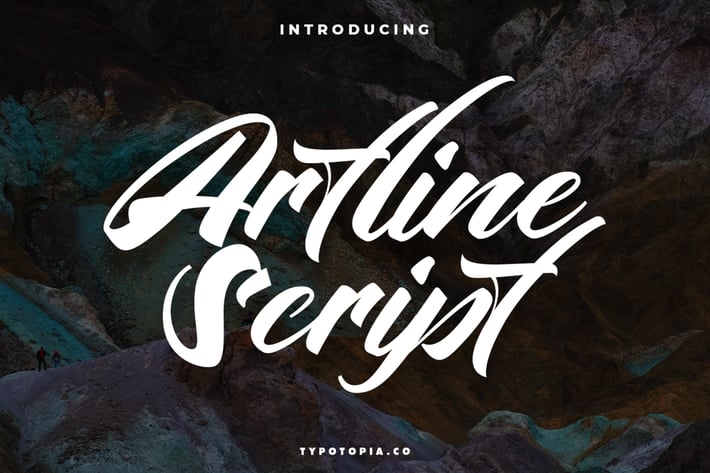
Artline Fancy Script Fonts
Introducing Artline Fancy Script Fonts. This perfect for the purposes of designing templates, brochures, videos, advertising branding, logos and more.